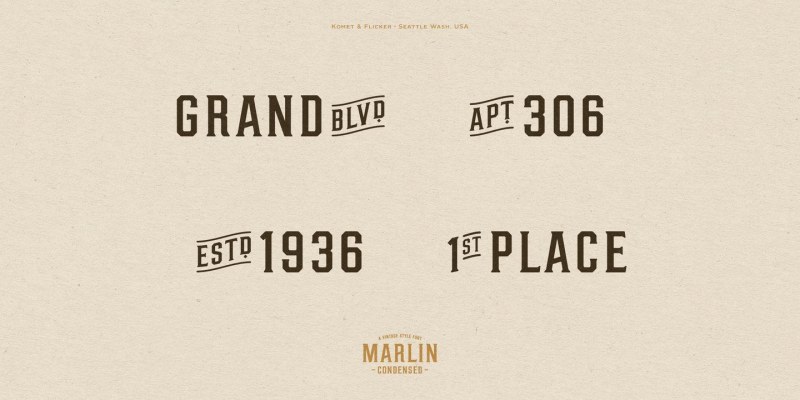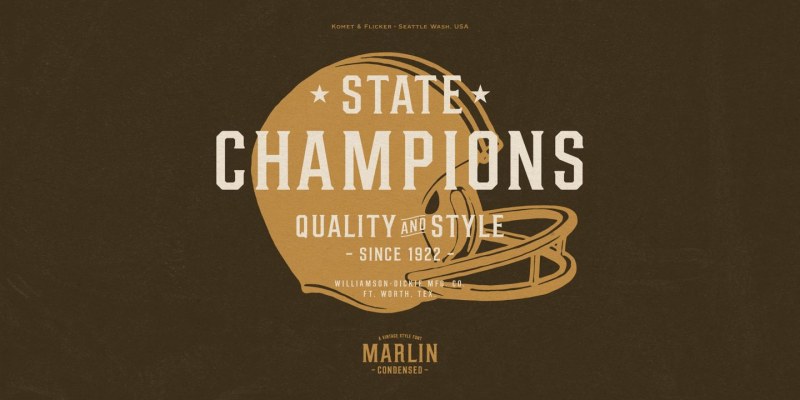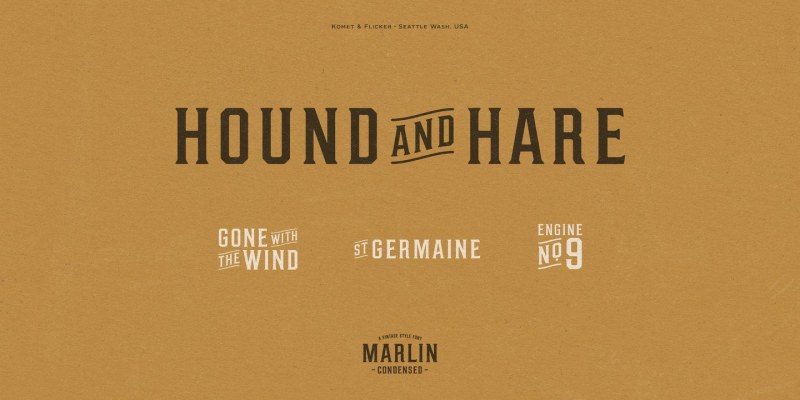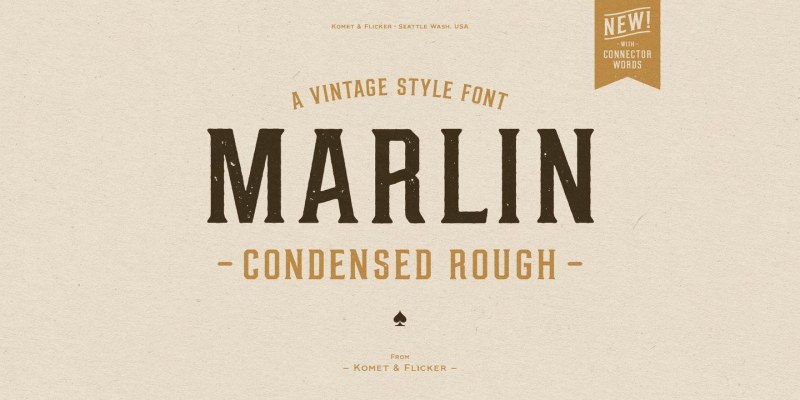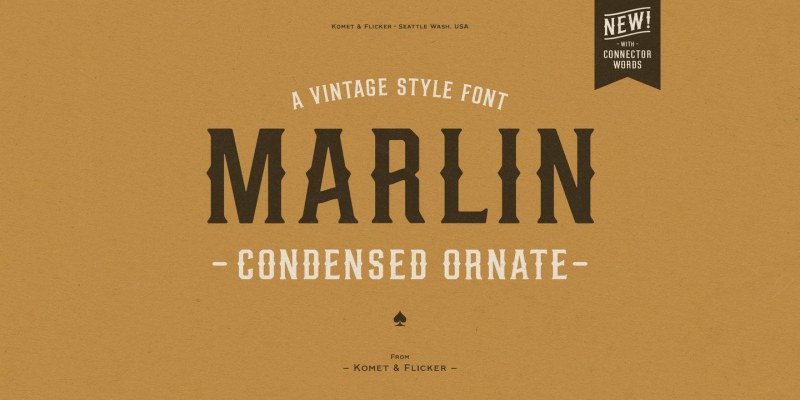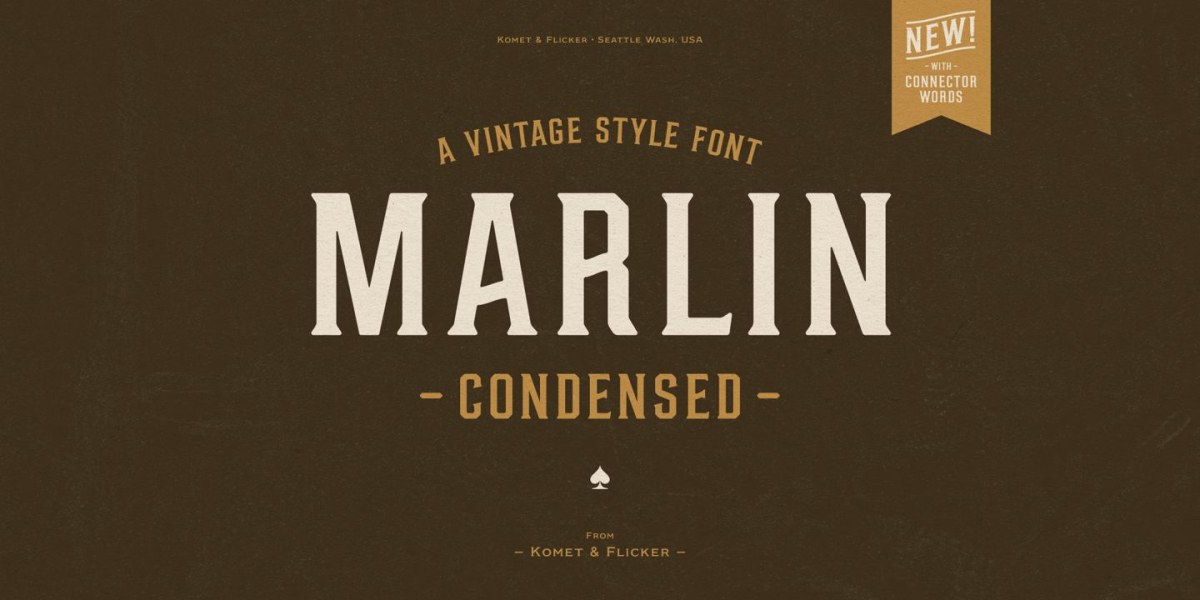
Marlin Font Family
NEW! Includes a set of 42 connecting word character glyphs along with 23 alternate lowercase glyphs. MARLIN is a condensed vintage style serif display font that works great for logos, packaging, branding, menus, advertising, and posters. The lowercase letter set has different letterforms allowing you to mix and match upper and lowercase for a variety of looks. In Illustrator, the custom connecting word set can easily be accessed in the “Type → Glyphs” panel and in Photoshop through “Type → Panels → Glyphs Panel”.
Where Marlin Font Family works best
Marlin Font Family gives long-form text a classic, trustworthy rhythm — ideal for magazine spreads, annual reports and book interiors.
Pair Marlin Font Family with generous letter-spacing for wordmarks in fashion, hospitality, wine and jewellery branding.
Use Marlin Font Family for slide titles in Keynote, PowerPoint or Google Slides to add authority without looking dated.
What is Marlin Font Family good for?
Marlin Font Family is a Serif Fonts typeface tagged Branding, Condensed, Display, Packaging. It works well for headlines, logos, posters, social media graphics and branding projects that need a distinctive serif fonts look.